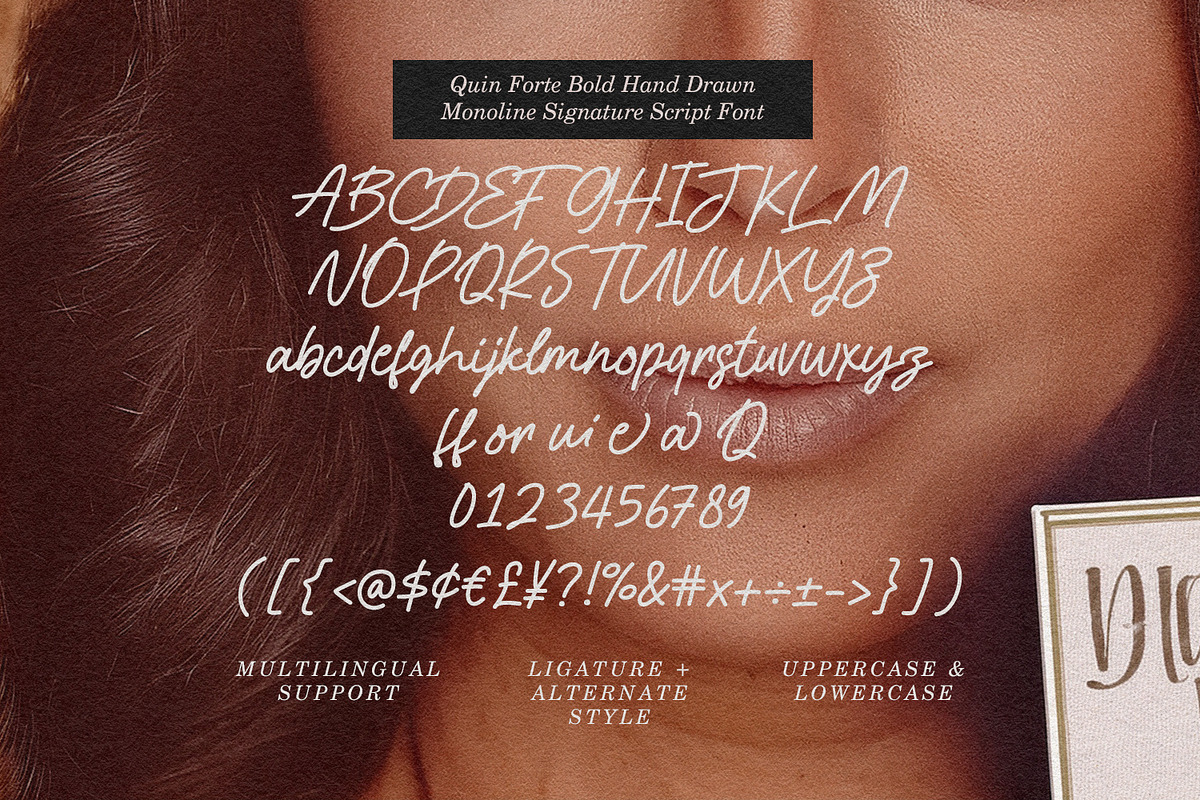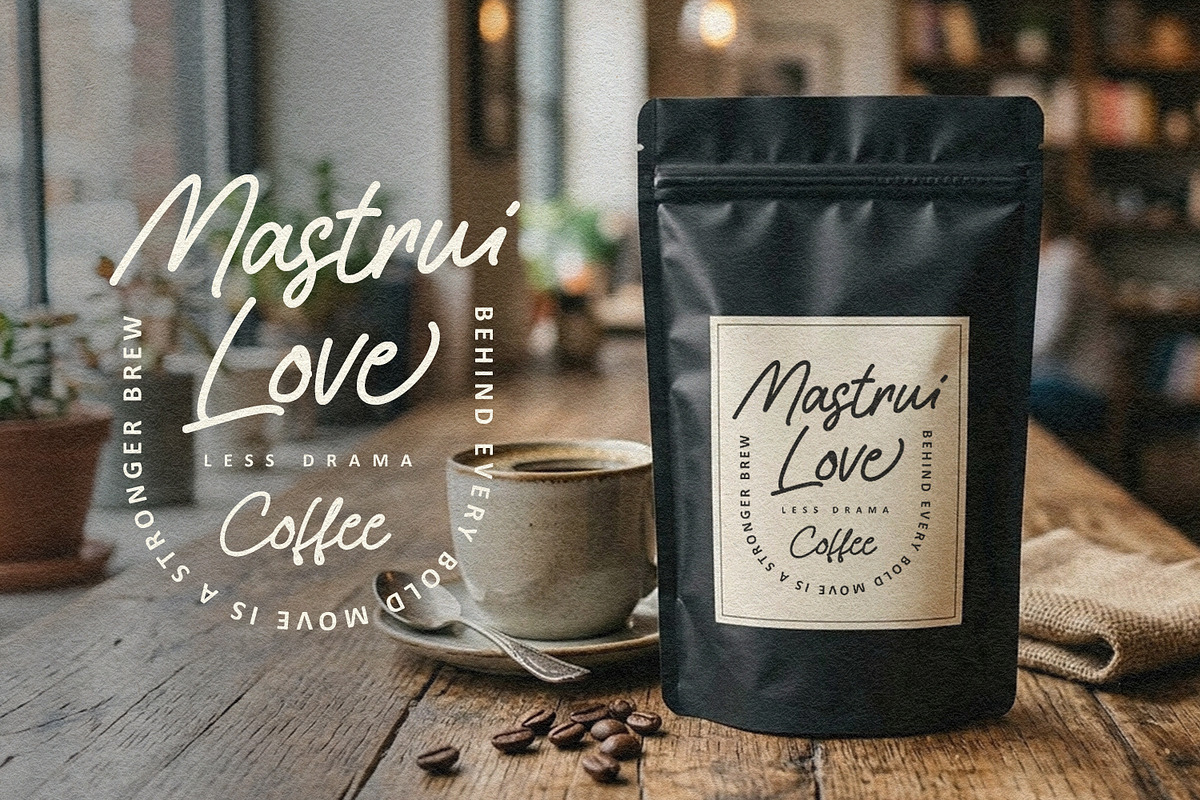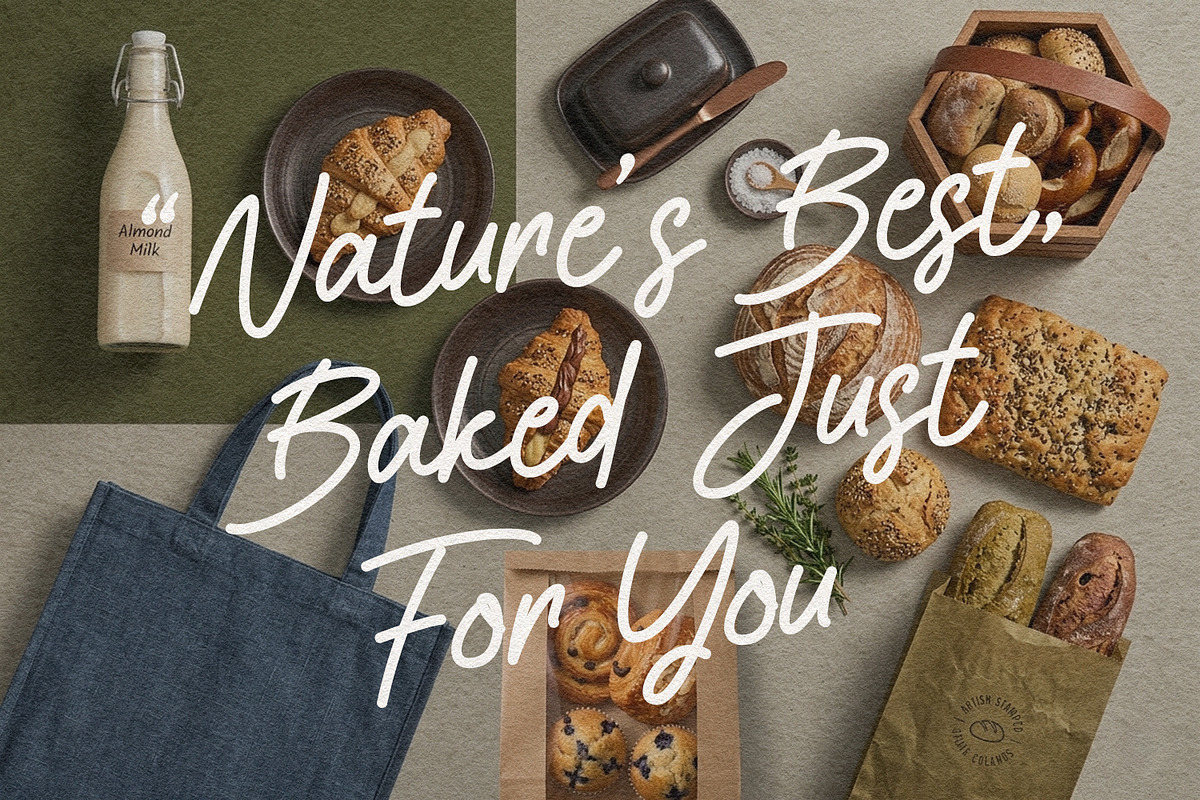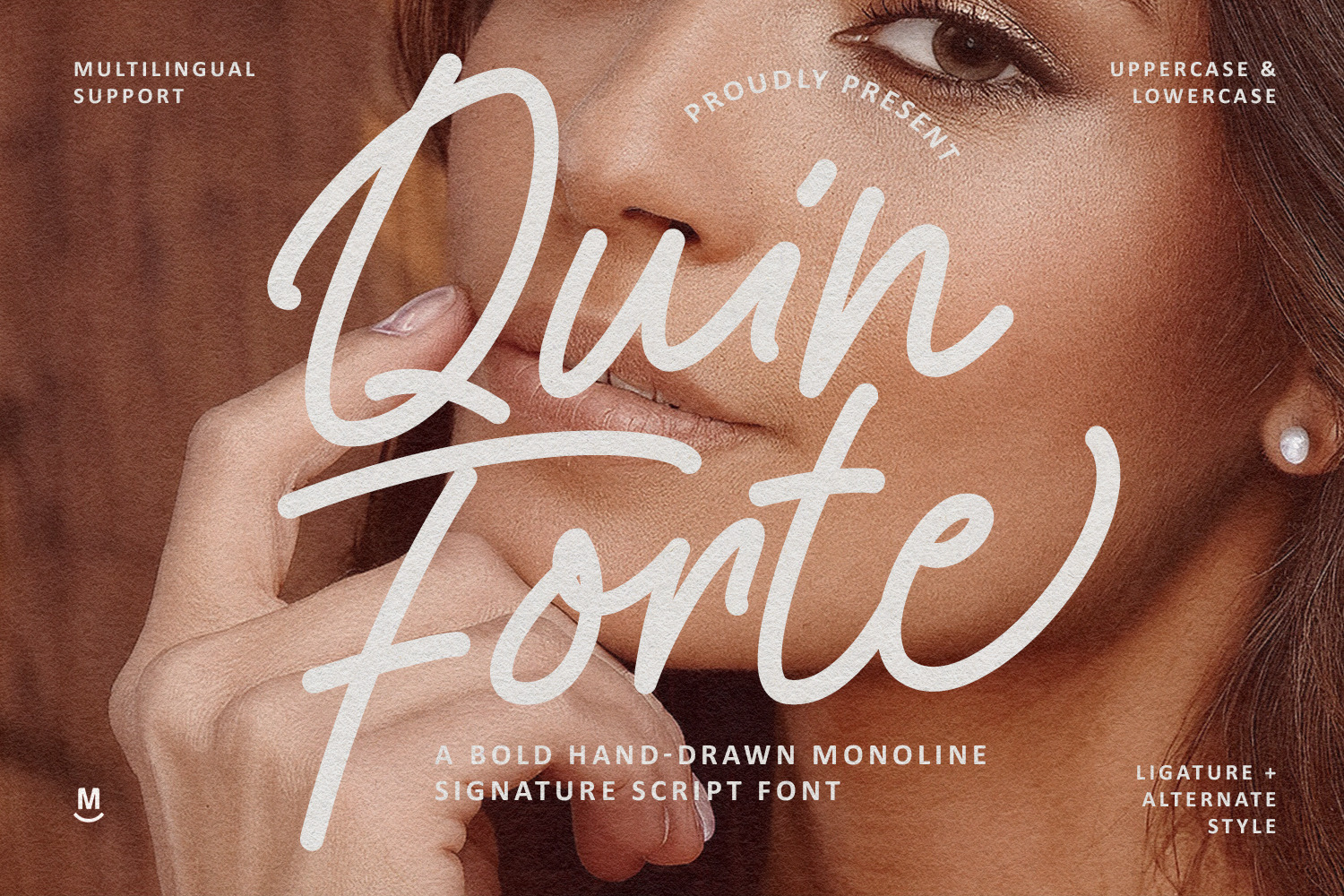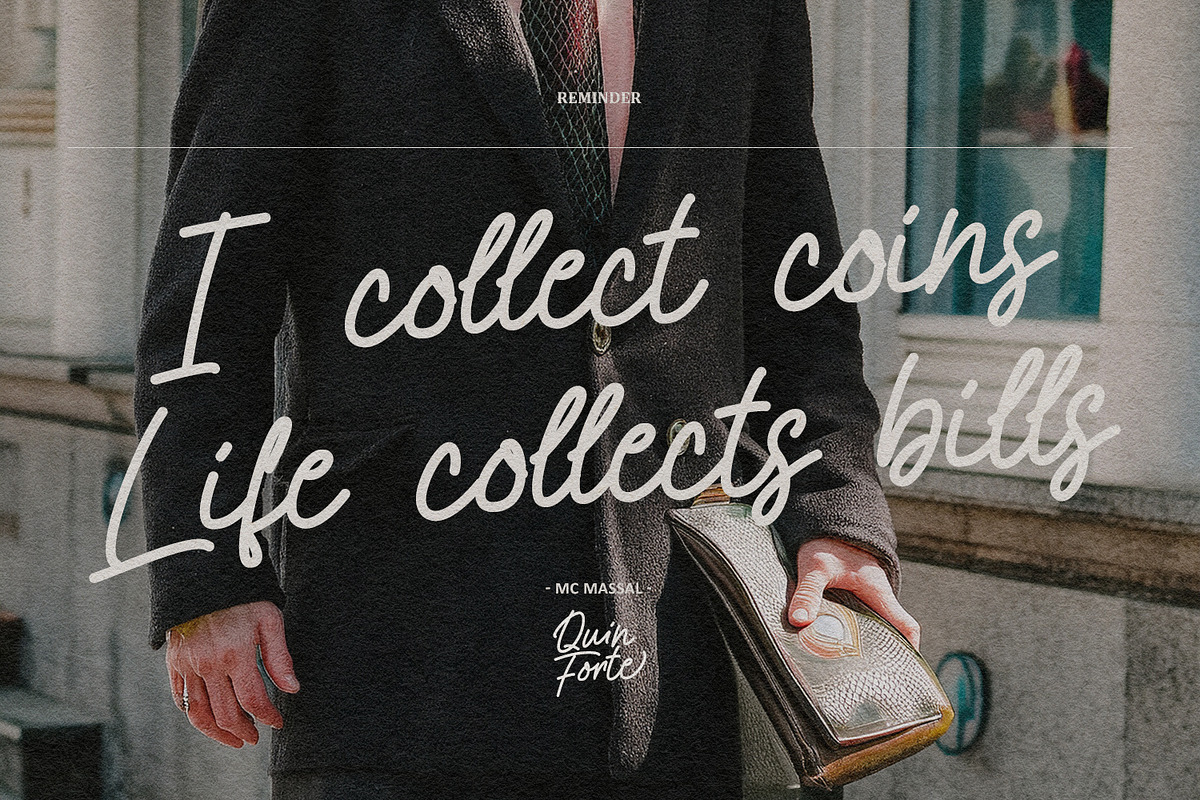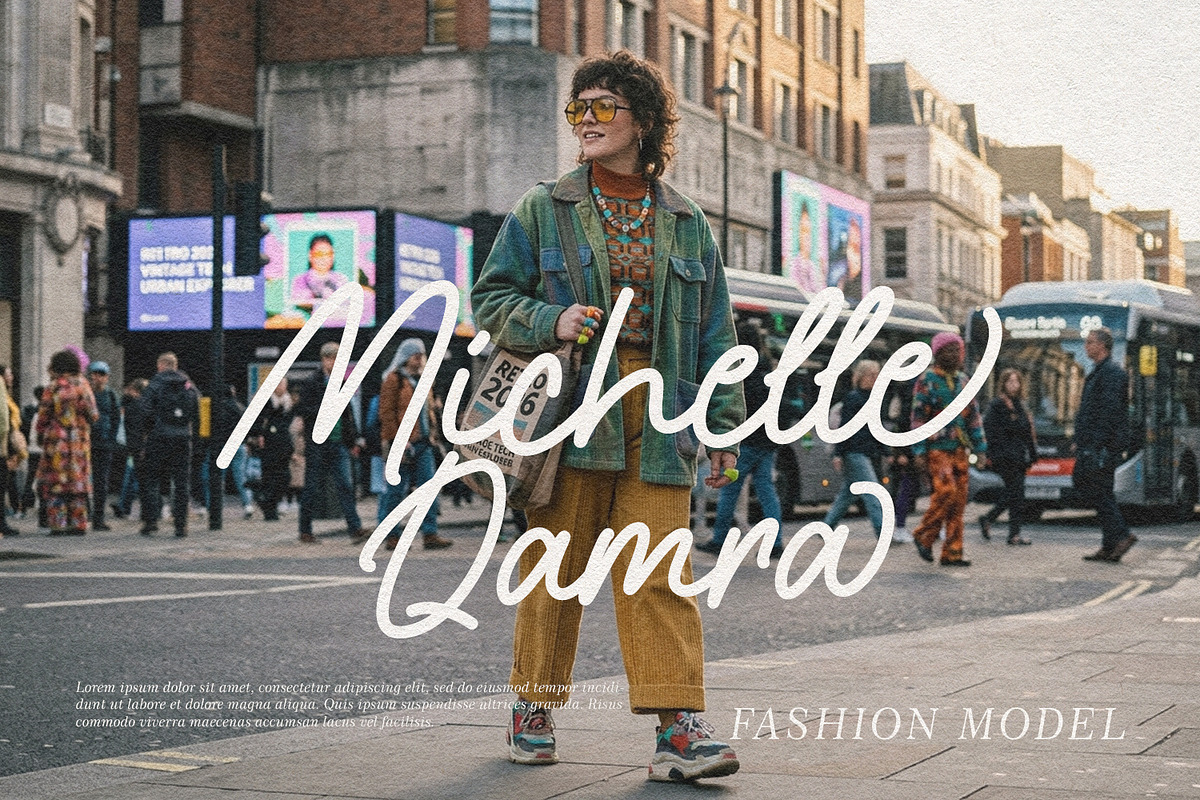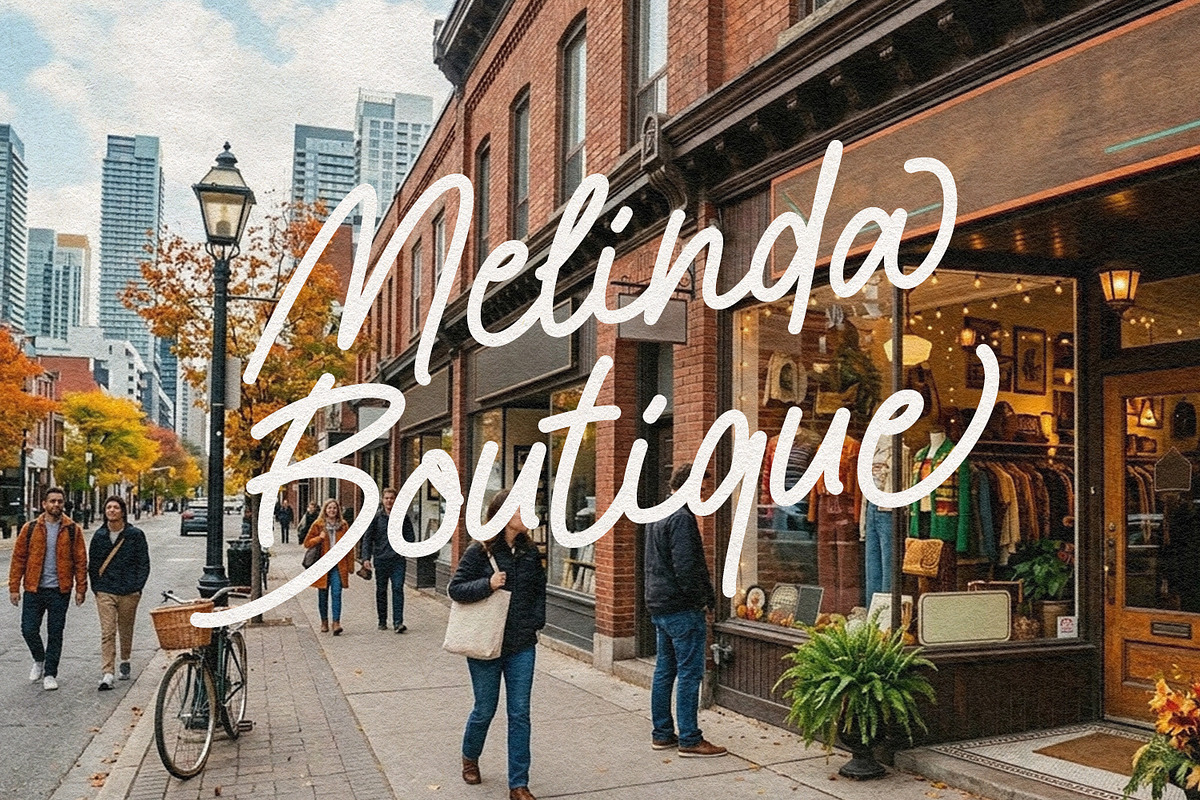
Quin Forte Hand Drawn Monoline Font
Quin Forte is a sophisticated, hand-drawn monoline script font that strikes the perfect balance between organic warmth and professional elegance. Characterized by its bold, consistent stroke weight and fluid "signature" flow, this font brings an authentic, personalized touch to any creative project. It features a full set of uppercase and lowercase letters, numerals, and punctuations, along with specialized ligatures and alternate styles to mimic real handwriting. Whether you are designing high-end branding, fashion lookbooks, boutique signage, or artisanal packaging, Quin Forte delivers a modern, stylish aesthetic that feels both handcrafted and high-fashion.
- Full character set (Uppercase & Lowercase)
- Numbers, Punctuation, and Symbols
- Ligature and alternates for a natural handwriting flow